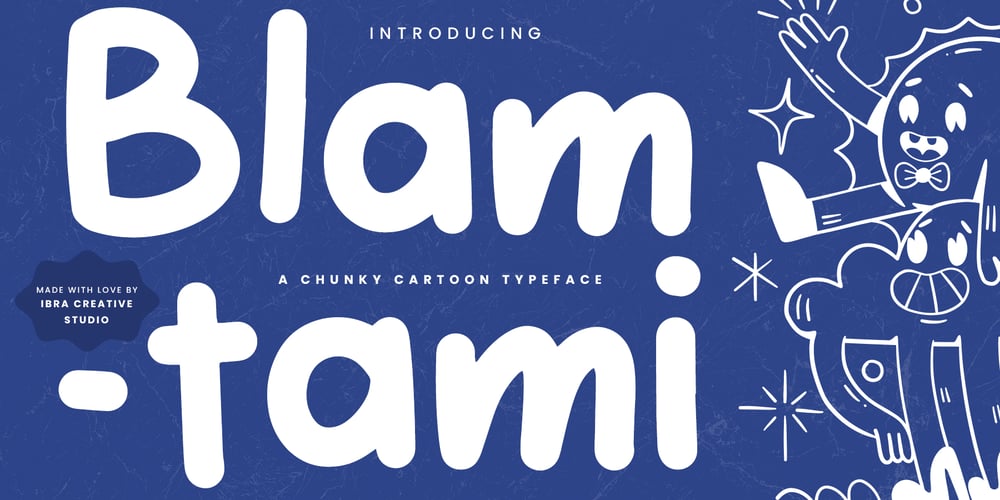
Blamtami Font Family was designed by Roisatul Azizah and published by IbraCreative. Blamtami contains 1 styles and family package options. Blamtami – A Chunky Cartoon TypefaceBlamtami is a delightful chunky cartoon typeface bursting with playful energy and whimsical charm. Each letter is crafted with bold, rounded strokes that evoke a sense of fun and excitement. The thick lines and exaggerated proportions give Blamtami a distinct cartoonish appeal, making it perfect for comic books, children’s books, posters, and anything that requires a touch of lightheartedness. Whether used for headlines, logos, or captions, Blamtami adds a touch of personality to any design, inviting readers to embark on a vibrant and colorful journey through its cheerful letterforms.Blamtami is perfect for branding projects, logo, wedding designs, social media posts, advertisements, product packaging, product designs, label, photography, watermark, invitation, stationery, game, fashion and any projects.Fonts include multilingual support for; Afrikaans, Albanian, Czech, Danish, Dutch, English, Estonian, Finnish, French, German, Hungarian, Italian, Latvian, Lithuanian, Norwegian, Polish, Portuguese, Slovak, Slovenian, Spanish, Swedish.